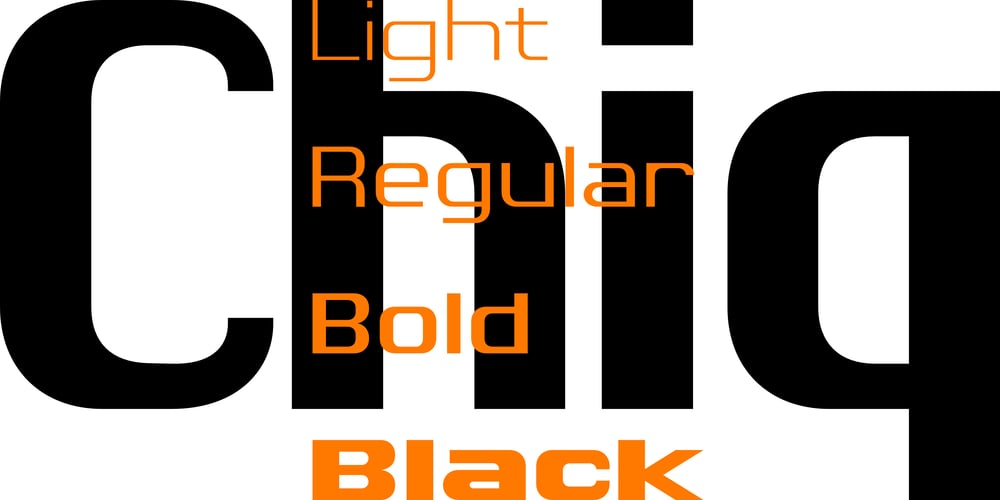
Chiq Font Family was designed by Ingo Zimmermann and published by Ingo. Chiq contains 25 styles and family package options. The name suggests it: the Chiq is based on a well-known system font from Apple’s classic Mac OS operating system.By revamping and expanding good old “Chicago“, I want to make that 90s tech charm available for the future.The model consisted of just a single style and inspired me to create “Chiq Bold,” which later became the starting point for the entire font family.The shapes of the Chiq are constructed according to a very simple principle. The contrast of stems and hairlines becomes more pronounced towards the bolder cuts. A few basic shapes form the framework for all characters. The shapes are very regular and sometimes form somewhat unusual figures, which has a negative effect on readability and makes the font rather unsuitable for long passages of text, but results in a very even typeface. This is particularly true for the extra-wide “UltraExpanded,” which is so wide that you can no longer recognize word images but literally have to spell them out. In this way, words are turned into letter bands with a great decorative effect.With variants from “Light” to “Black”, from “Normal” to “Ultra Expanded” and the italics, Chiq reaches beyond its archetype. This opens up a wide range of uses. It is even clearer, even more sober, and to a certain extent speaks an even more modern formal language.Chiq is also a variable font!